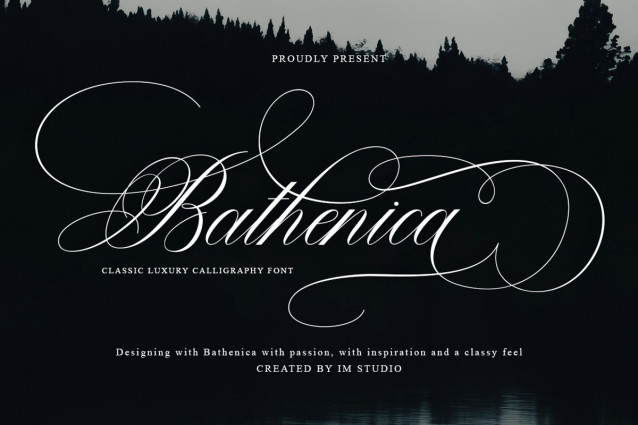
Bathenica Font
Bathenica Font is a sophisticated script font that blends the charm of classic decorative copperplate with a modern, stylish touch. Designed with meticulous detail, it offers graceful curves, smooth connections, and a timeless elegance that enhances any design.
This typeface is versatile, featuring a variety of beautiful alternates and ligatures to give your projects a personal and refined look. Its clean, feminine, and glamorous style makes it ideal for both formal and creative applications, such as invitations, logos, labels, fashion, beauty branding, stationery, magazines, books, greeting cards, packaging, menus, and more.